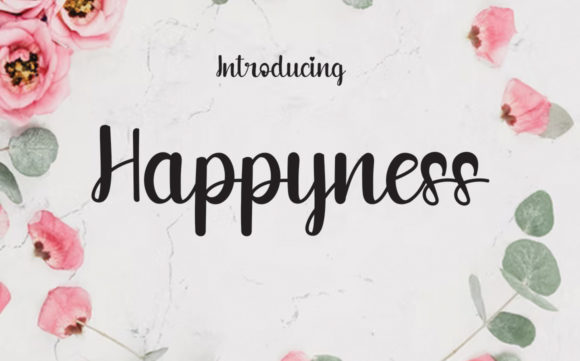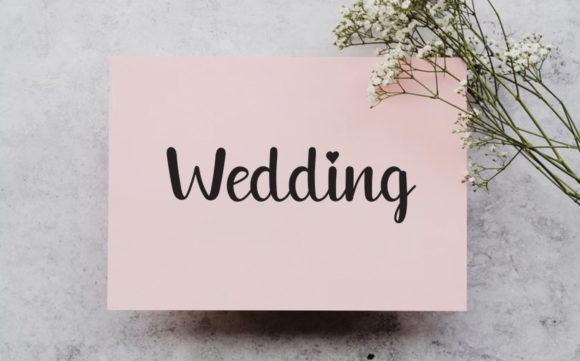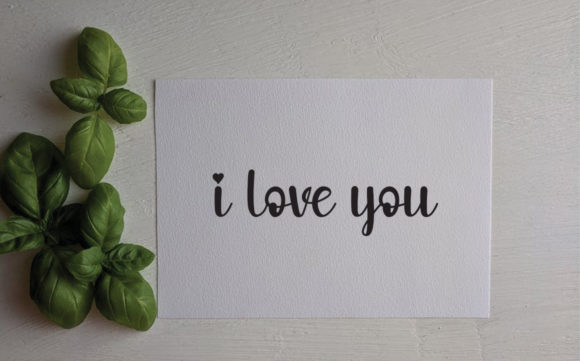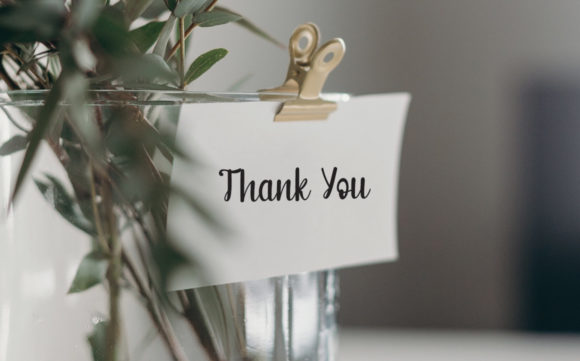
About Happyness Font
Happyness is a well-balanced and delicate script font that emanates confidence and versatility. Its stylish alternates and ligatures make this font the perfect match for any project.